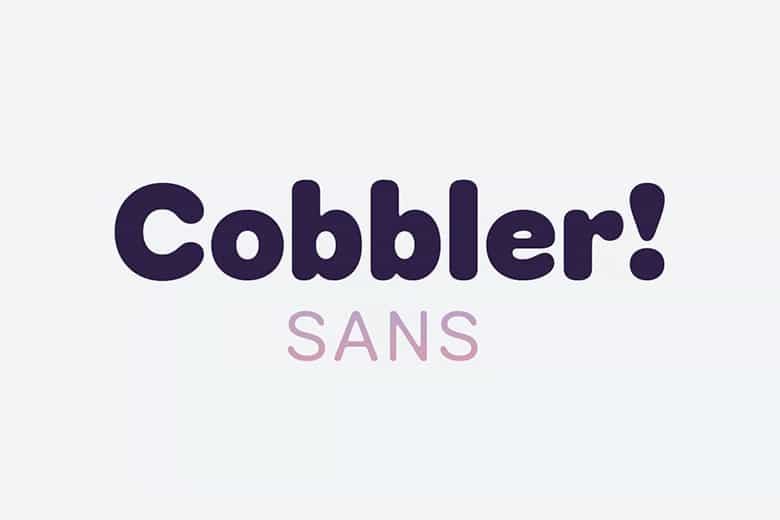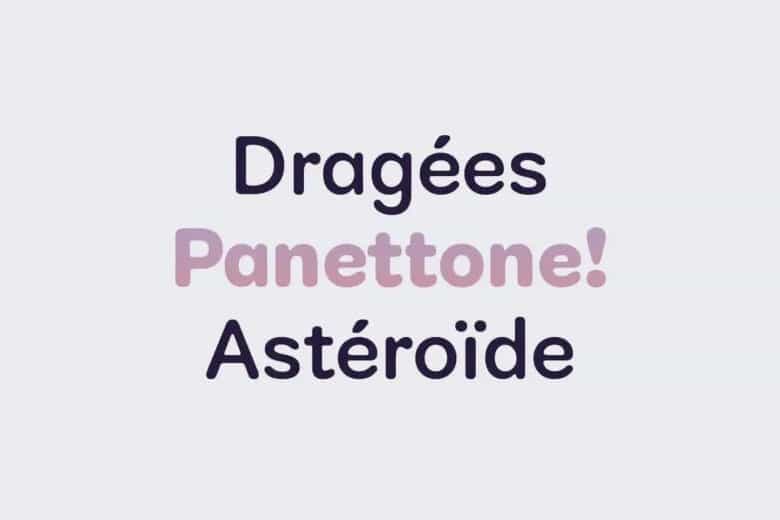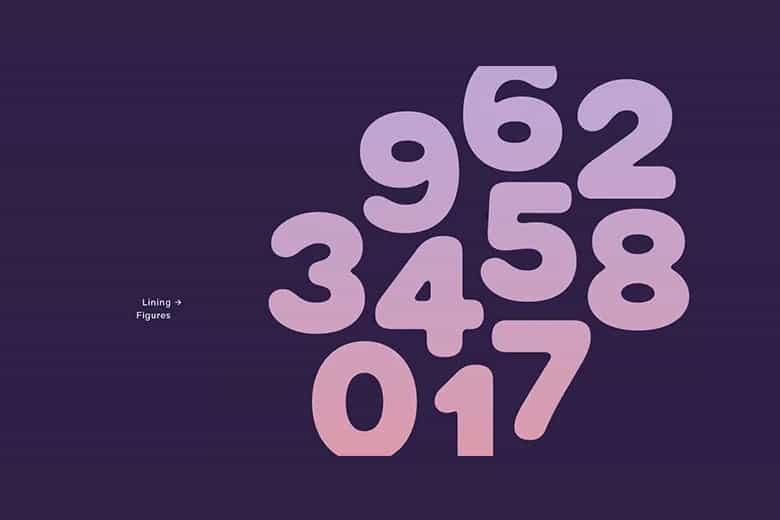
Cobbler is a great set of styles for a relatively low contrast sans serif font family. All terminals are made organically and even internal angles are smoothed out. The few straight lines add just enough grounding and keep the typeface a working horse though it retains the goopiness that defines the entire Cobbler family so much. Also, there is a whole bunch of the OpenType features implemented here. For instance, many discretionary ligatures which cause capital letters connect the left and right hand.